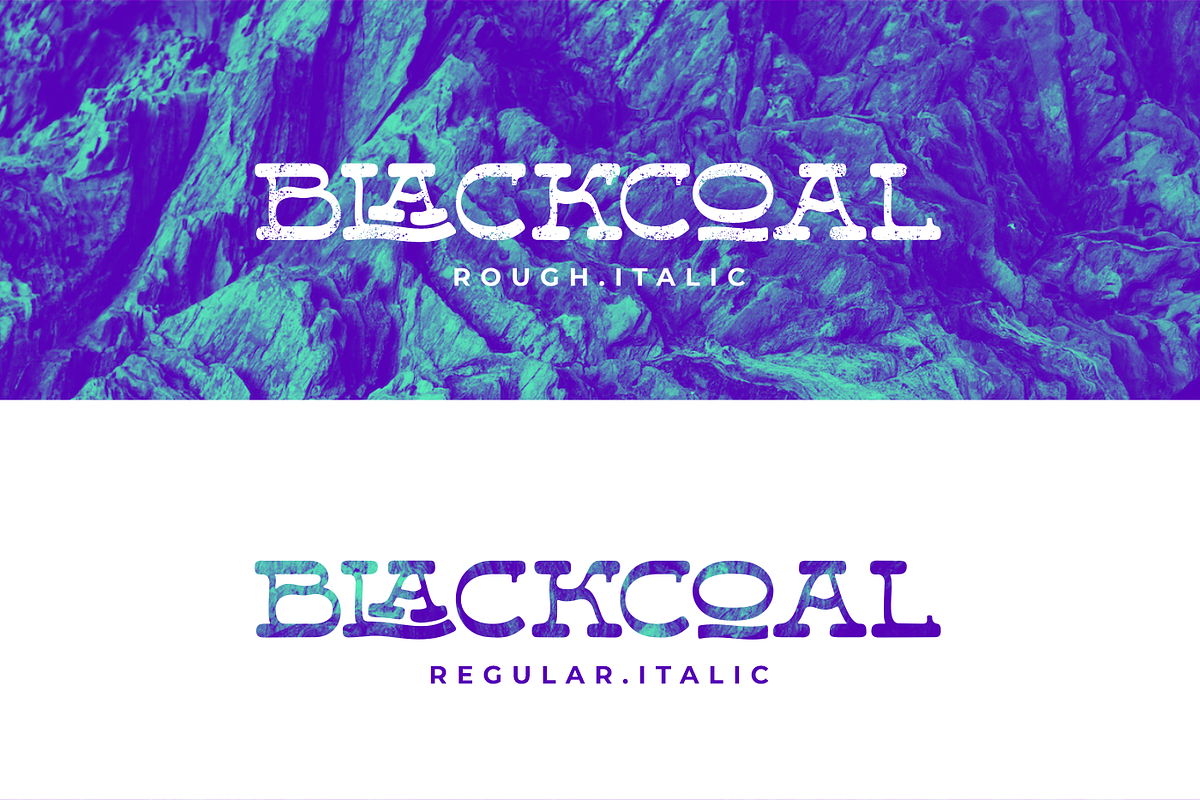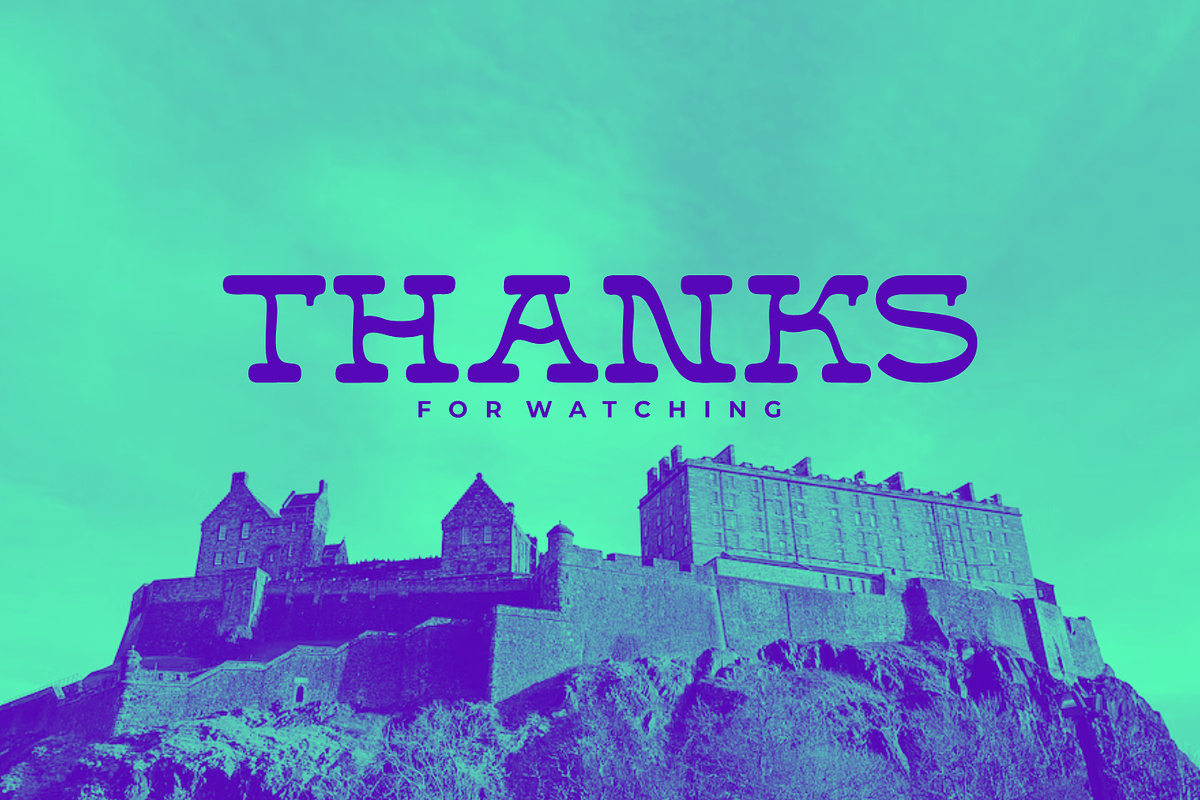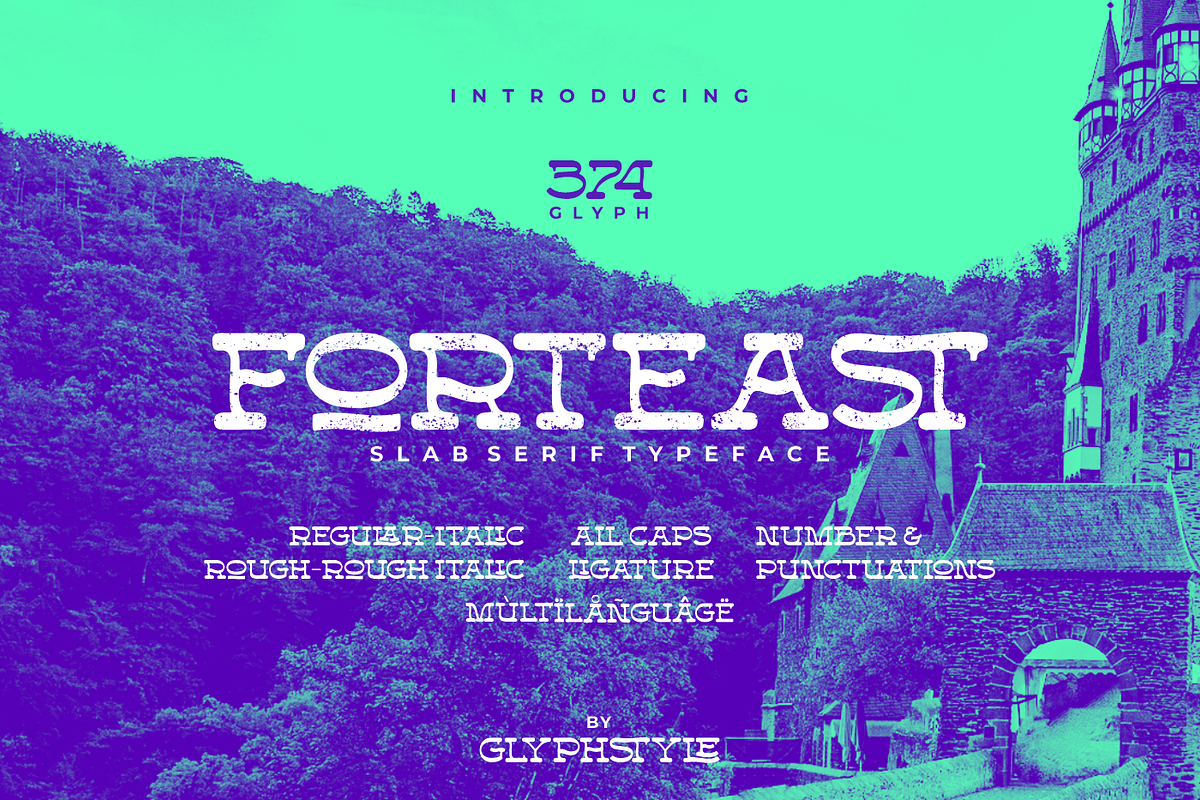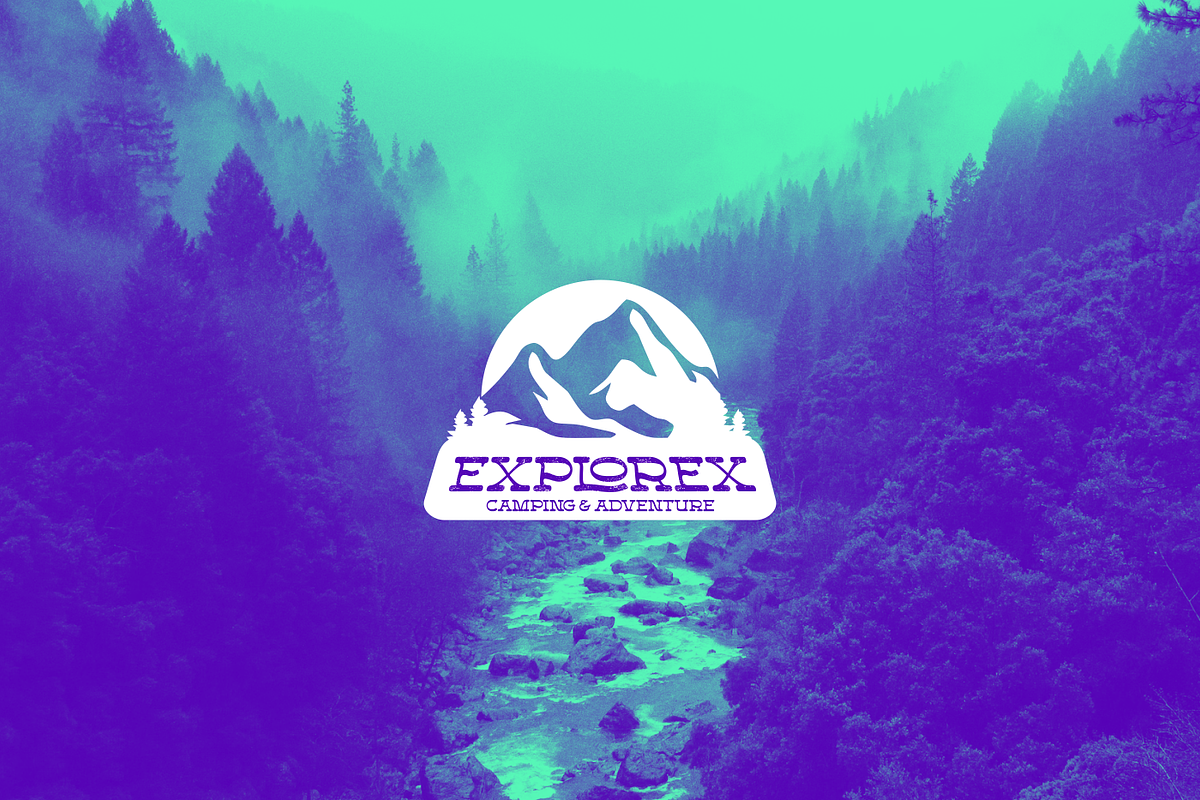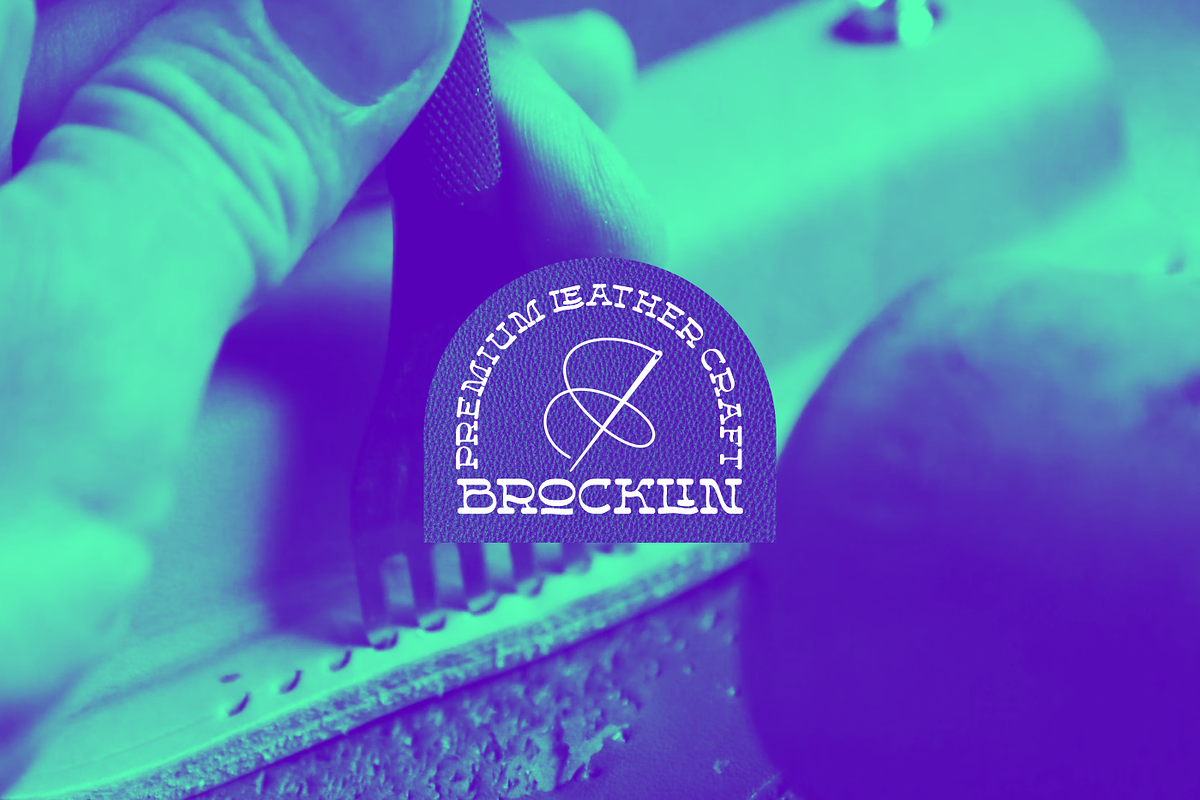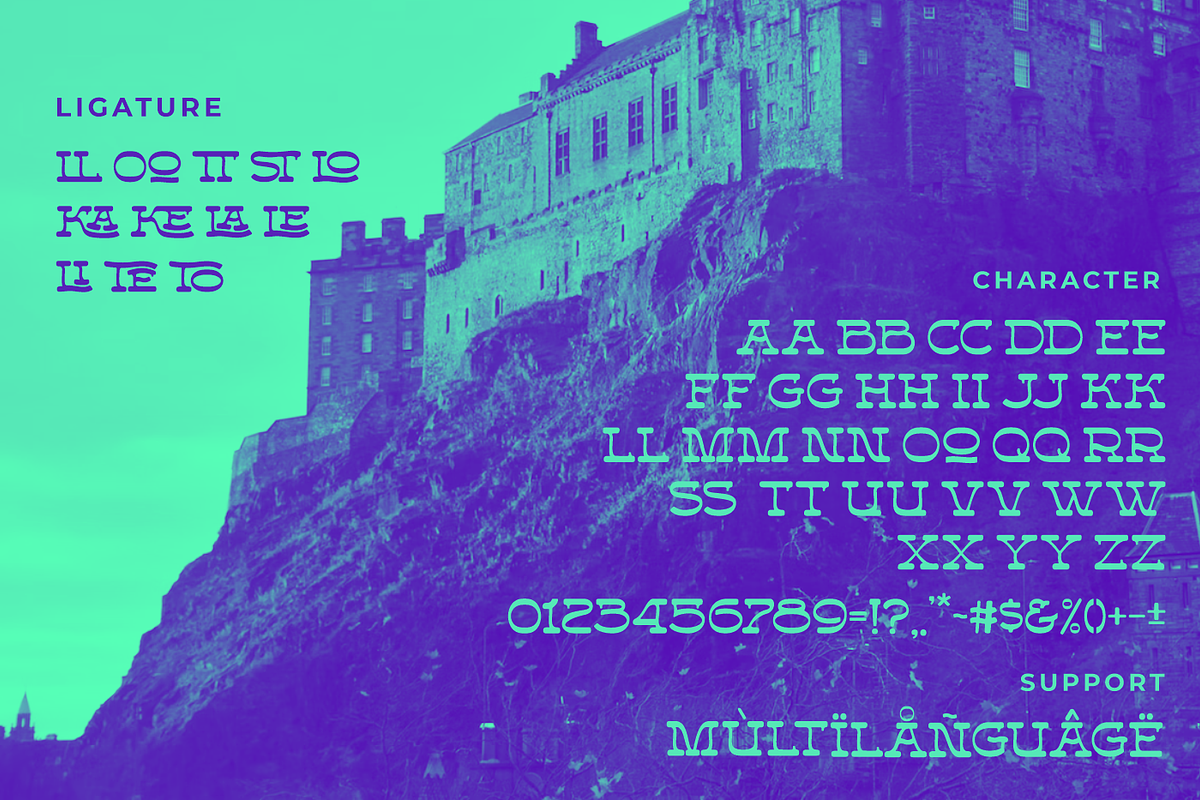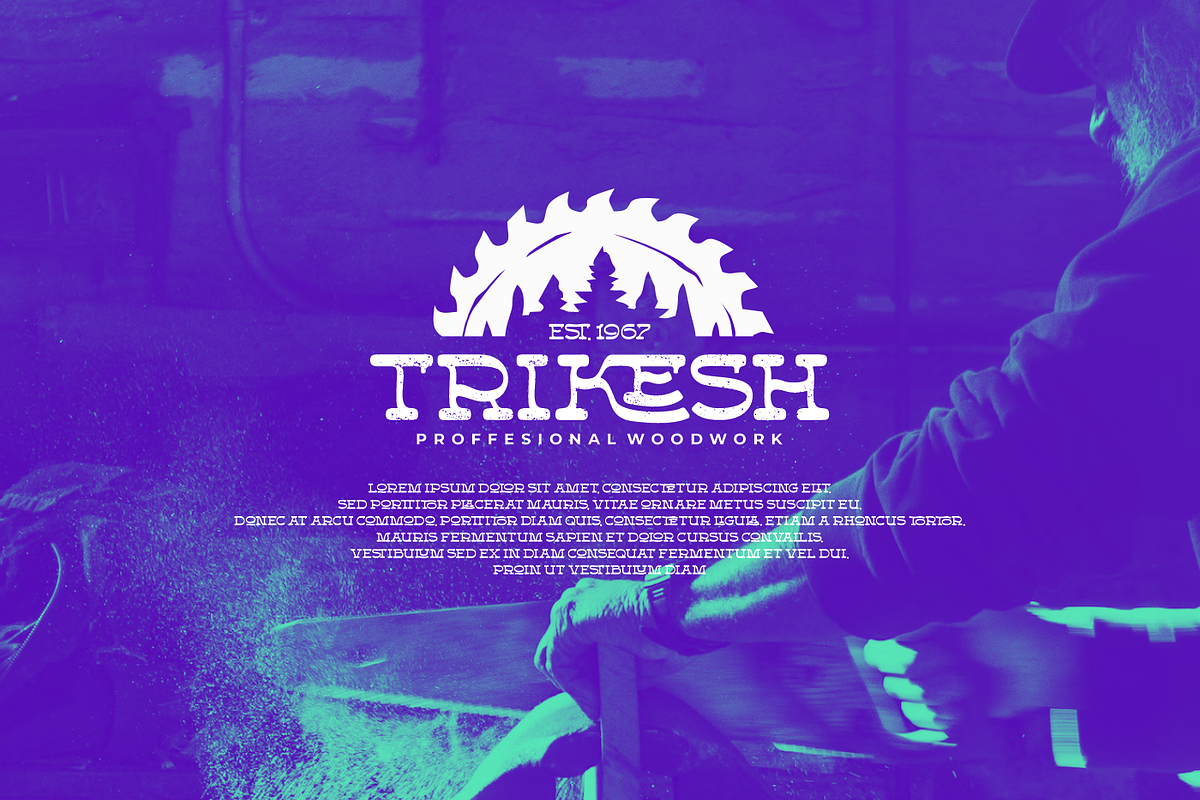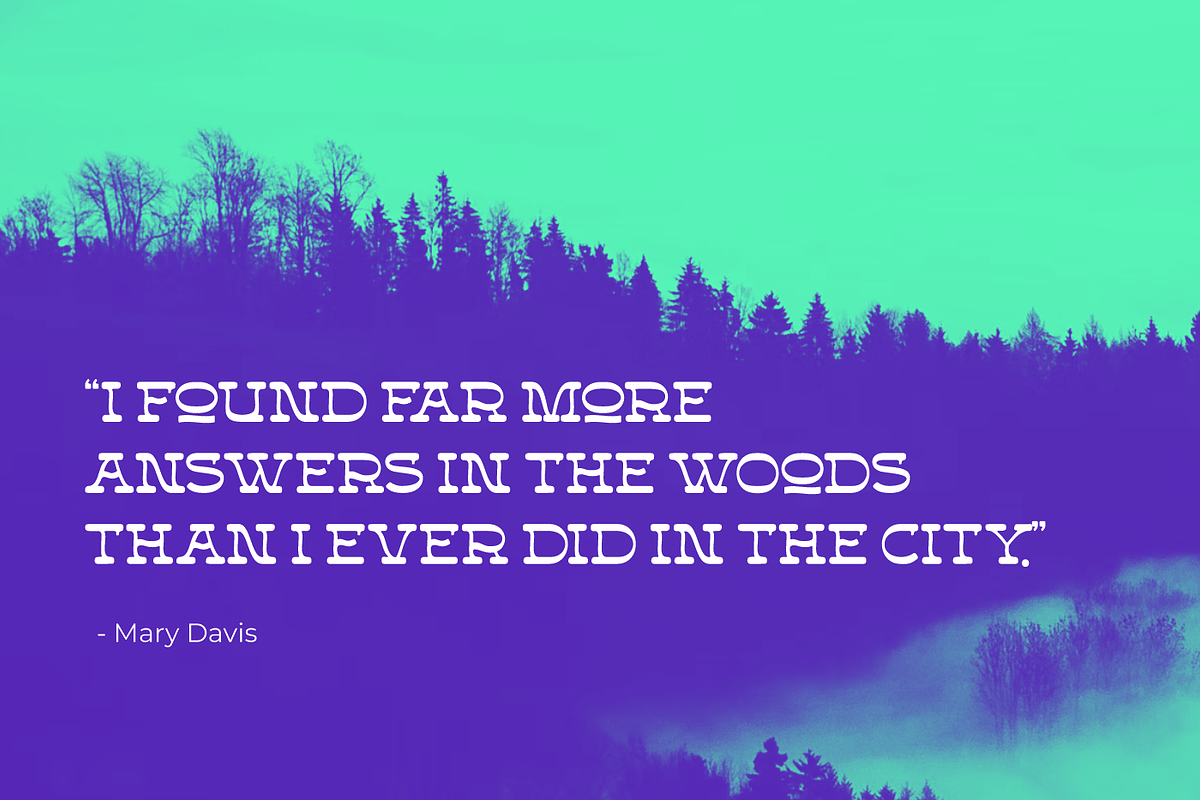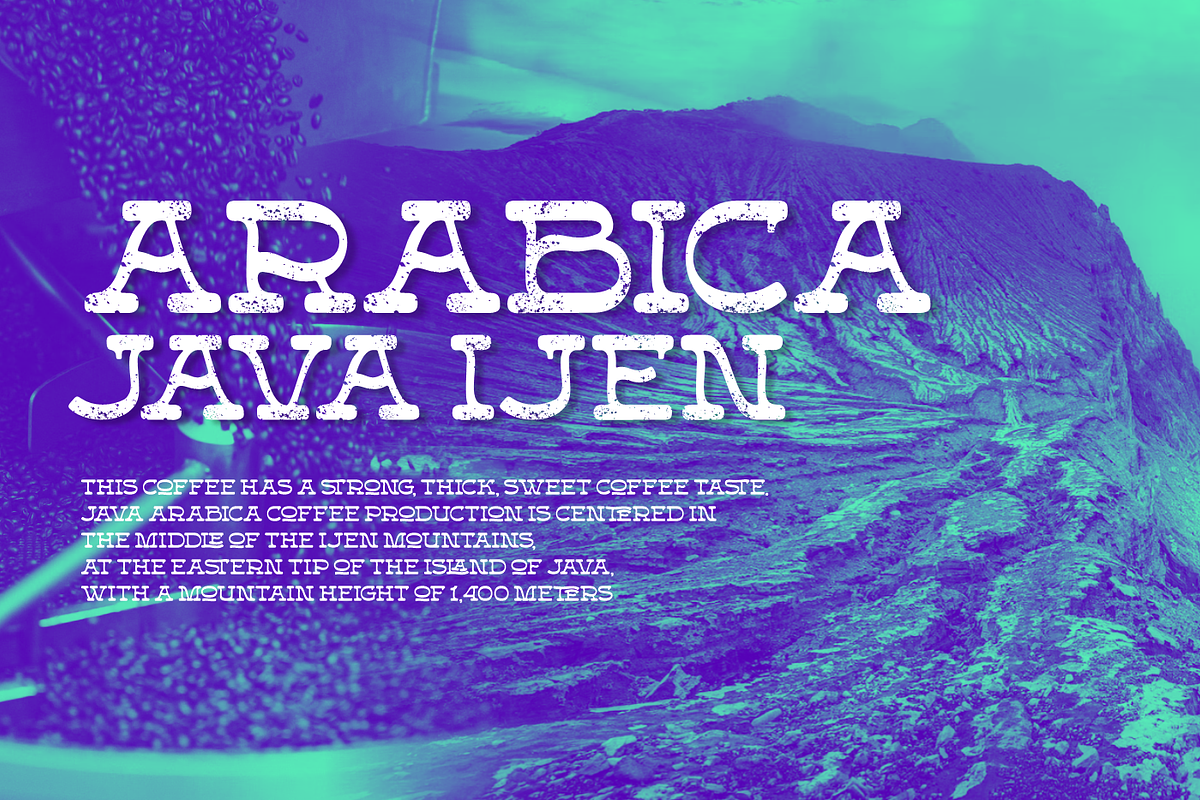
Forteast Slab Serif
Forteast is a smooth slab serif. slab serif that has a shape with a smooth curve. has two styles, normal and rough, there is also an italic version.
Forteast is perfect for branding projects, logos, wedding designs, social media posts, advertisements, product packaging, product designs, labels, photography, watermarks, invitations, stationery and any project that requires a slab serif with rough style
Font feature: All caps, Numerals & Punctuations, Ligature, Multilanguage